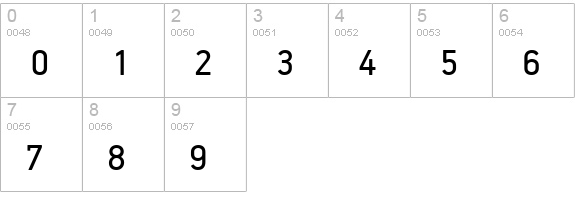
PFHandbookPro-Regular Font Details
PFHandbookPro-Regular is the standard, neutral variant in the PFHandbookPro typeface family \xE2\x80\x94 well suited to general body text, paragraphs, and standard typographic work.
PFHandbookPro-Regular font is a versatile and modern typeface that is perfect for a wide range of design projects. With its clean lines and easy readability, this font is ideal for both print and digital applications. Whether you're creating a sleek corporate identity or a stylish website design, PFHandbookPro-Regular is sure to make a bold statement. The best part? PFHandbookPro-Regular font is available for free download at FontsMarket.com. Simply visit the website and start using this fantastic font in your projects today. Don't miss out on this amazing opportunity to enhance your designs with a high-quality typeface that won't cost you a penny. Download PFHandbookPro-Regular now and take your creative projects to the next level!